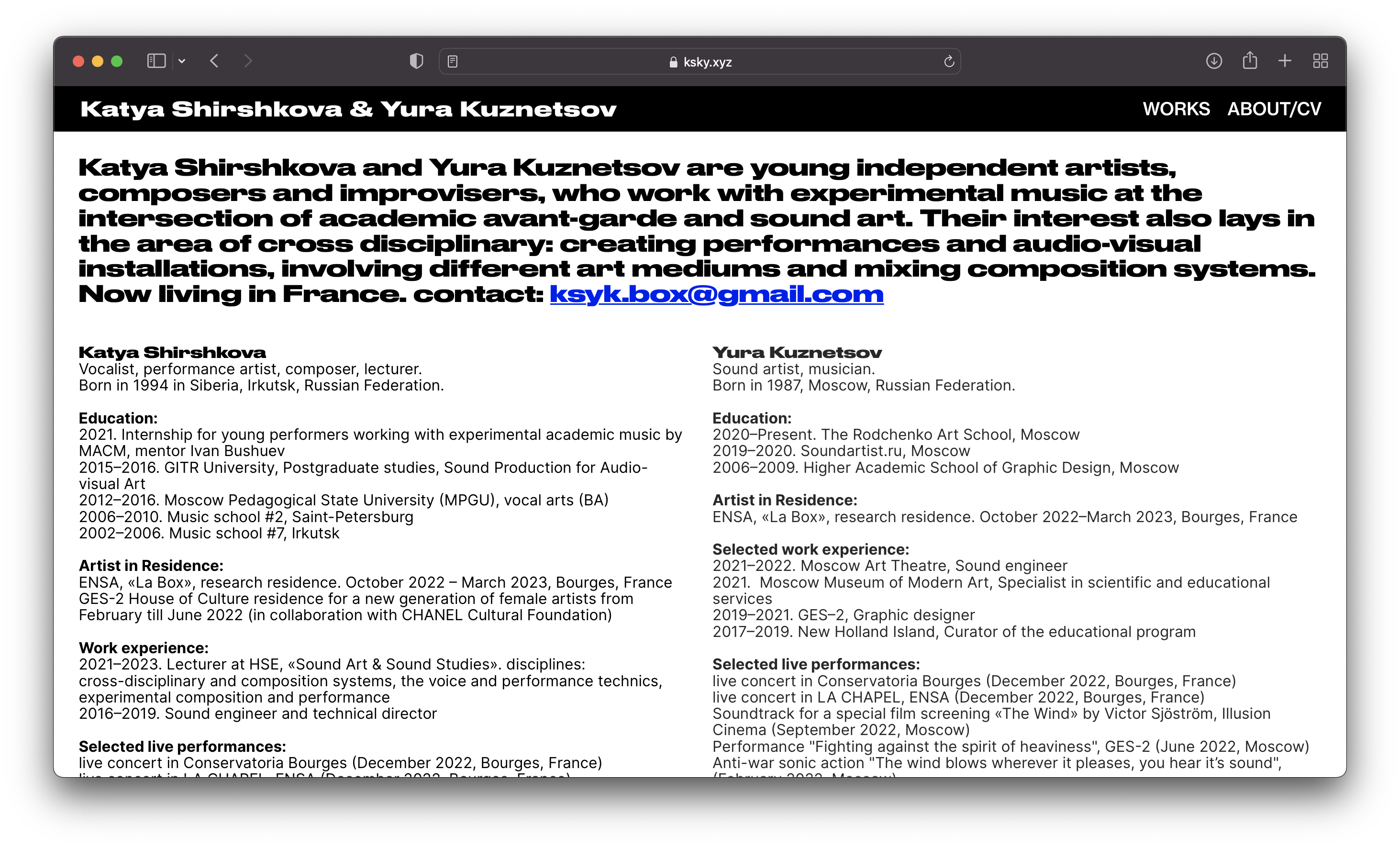
Artists Katya Shirshkova and Yury Kuznetsov teamed up in 2020 to make experimental music, put on performances, create sound art and audio-visual installations. In 2022, they put together a website/portfolio where headlines are set in Druk Commercial Type and Austin designed by the same studio is utilised for genre tags.
Austin is a typeface in the English and Scottish tradition designed by Paul Barnes for the Hearst Magazines publisher. The font loosely refers to the typefaces cut by punchcutter Richard Austin, but it looks way more expressive than its prototypes due to narrow characters and stronger contrast. The Cyrillic version was designed by Ilya Ruderman (CSTM Fonts).
Druk is a sans serif font designed by Berton Hasebe for Bloomberg Businessweek. It was conceived as a collection of opposites which includes extremely narrow, extremely wide and extremely heavy styles (ranging from Medium to Super). However, the family doesn’t feature any regular widths and anything narrower than semi-bold. The Cyrillic Druk was designed at CSTM Fonts.